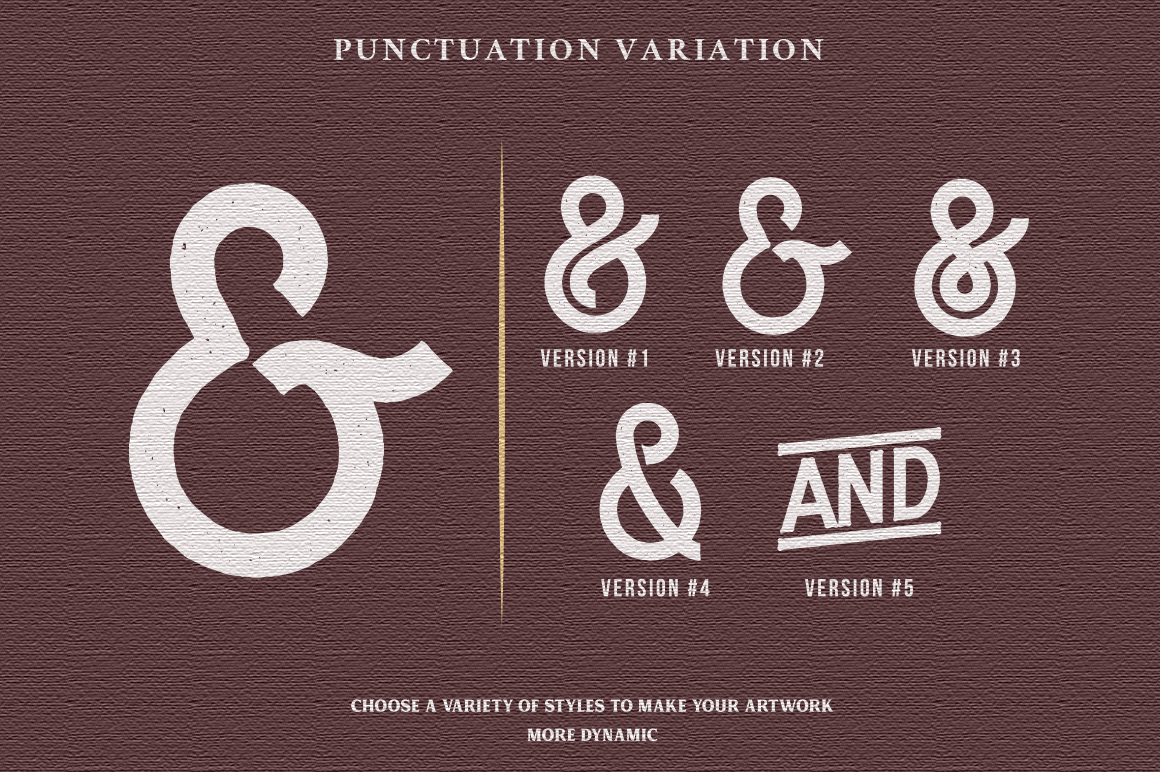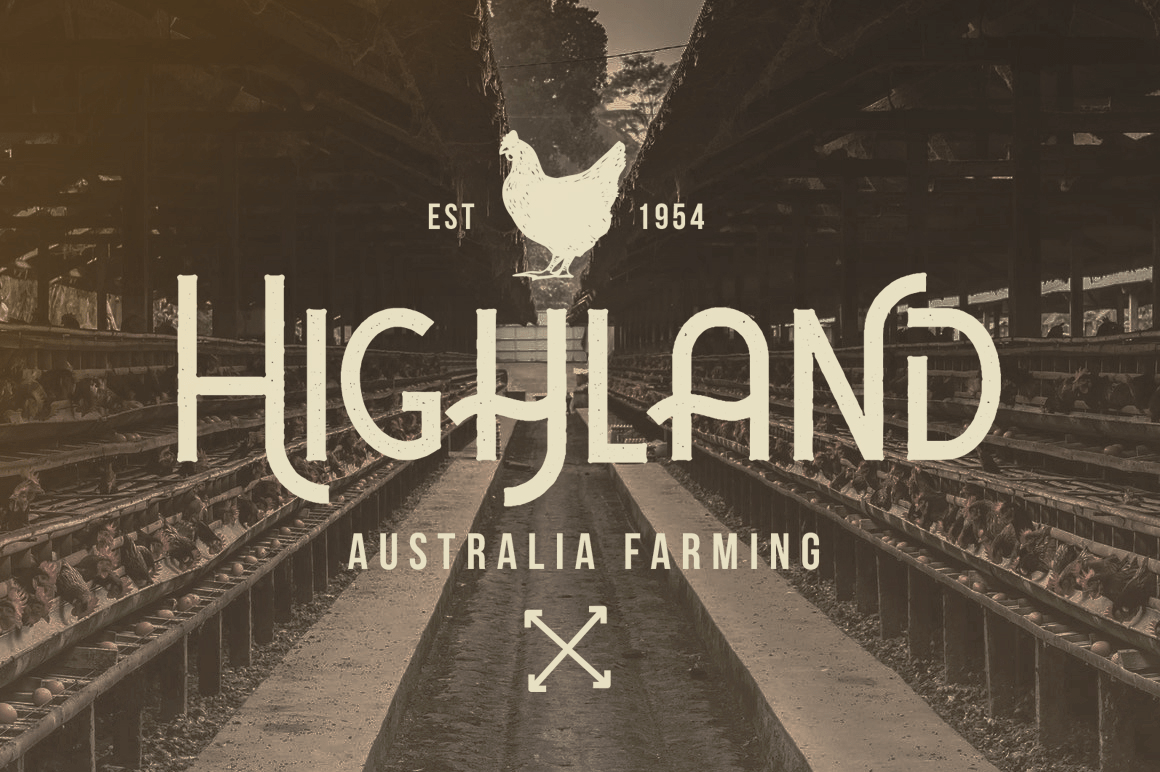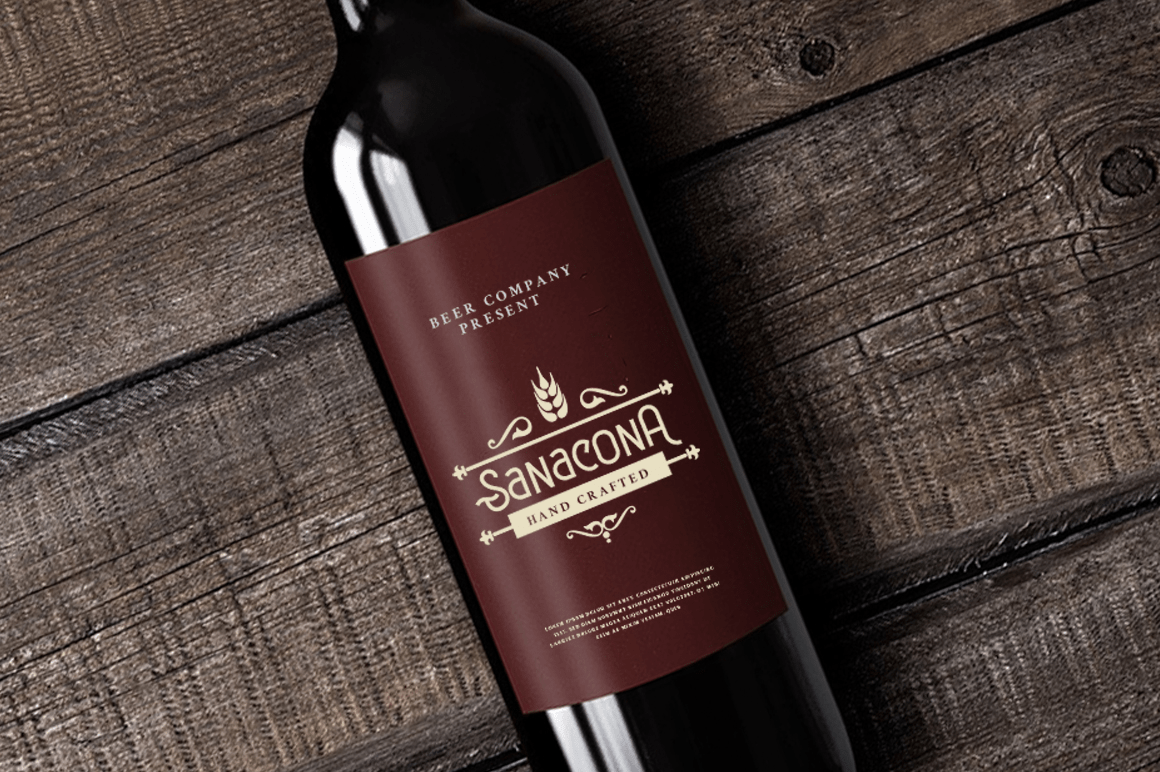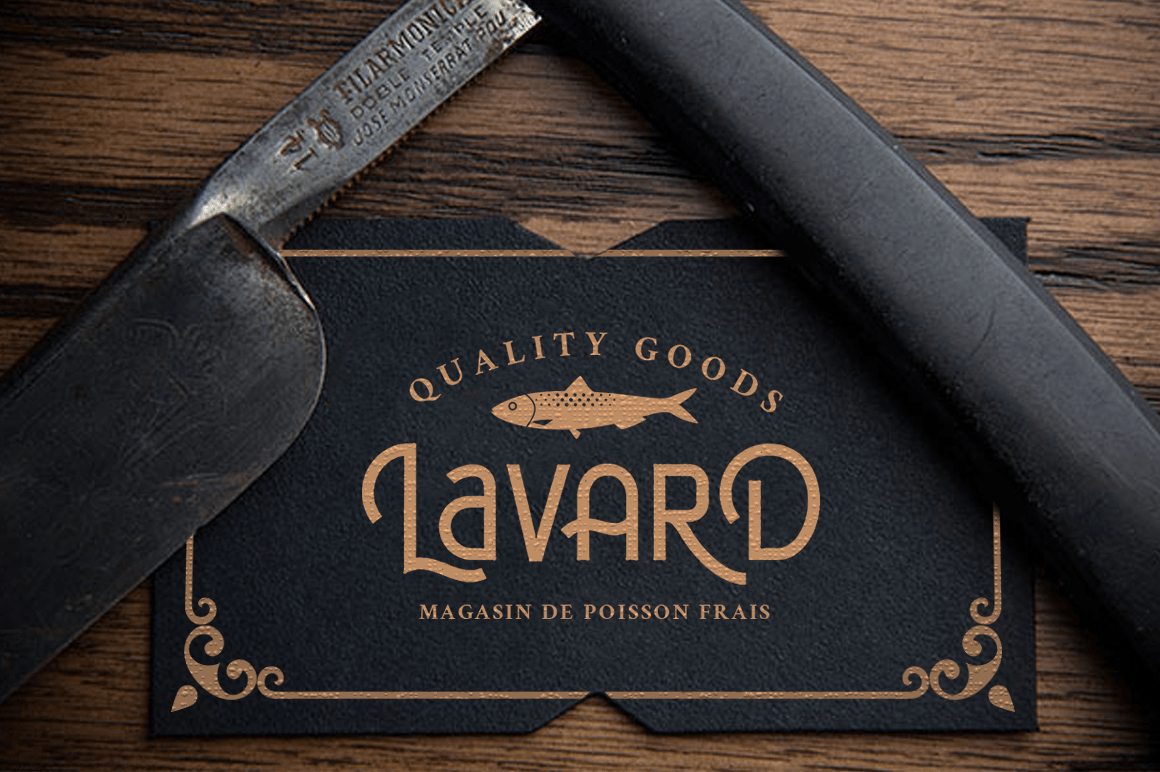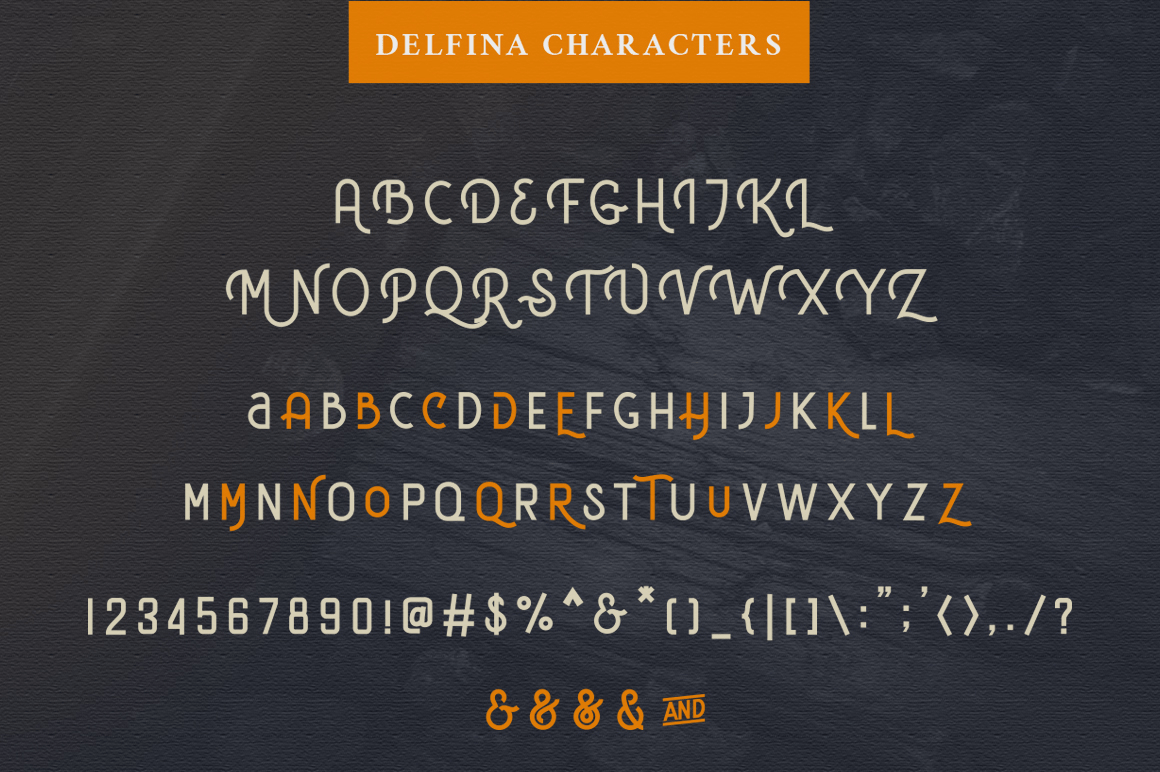
Introducing Delfina Vintage Sans Serif Font Inspired by vintage old America, Delfina has two styles, Clean and Rough, and also come with a lot alternative characters. Made carefully to create the perfect texture and suitable for each of your projects,…